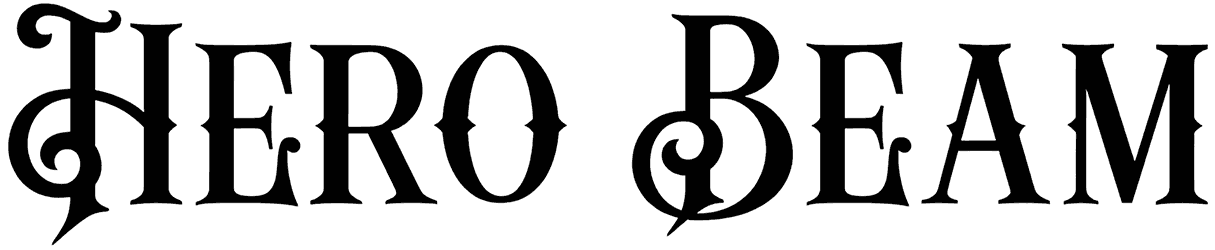
Hero Beam Font
Choosing a classy retro font, the same as the Hero Beam, would be the key to conveying complicated messages to the audience’s minds and convincing them to follow all of your work.
This all-caps antique font provides two different sets of capital letters and lets you add a fresh breath to all of your creative ideas, including movie posters, video game brochures, product packaging, business cards, or magazines. It can lead to a sense of vintage and tenderness.